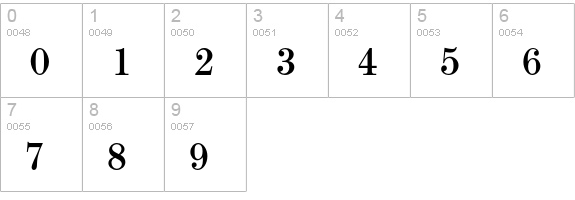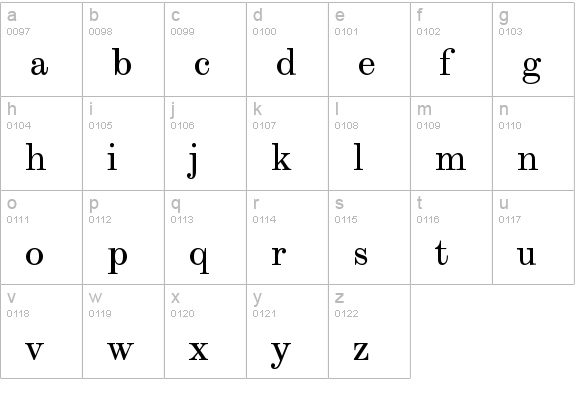
ModernExtendedEF-Book is a comfortable, highly readable variant in the ModernExtendedEF typeface family \xE2\x80\x94 well suited to long-form body text, articles, and editorial content.
ModernExtendedEF-Book is a sleek and sophisticated typeface that combines modern aesthetics with a timeless elegance. Its clean lines and balanced proportions make it perfect for a wide range of design projects, from editorial layouts to branding materials. The versatility of ModernExtendedEF-Book allows it to shine in both digital and print media, making it a must-have for any designer looking to make a statement. Best of all, ModernExtendedEF-Book is available for free download at FontsMarket.com. This means you can access this high-quality font without any cost, making it an accessible and valuable addition to your font library. Don't miss out on the opportunity to enhance your designs with the beauty and functionality of ModernExtendedEF-Book - download it today and see the difference it can make in your projects.